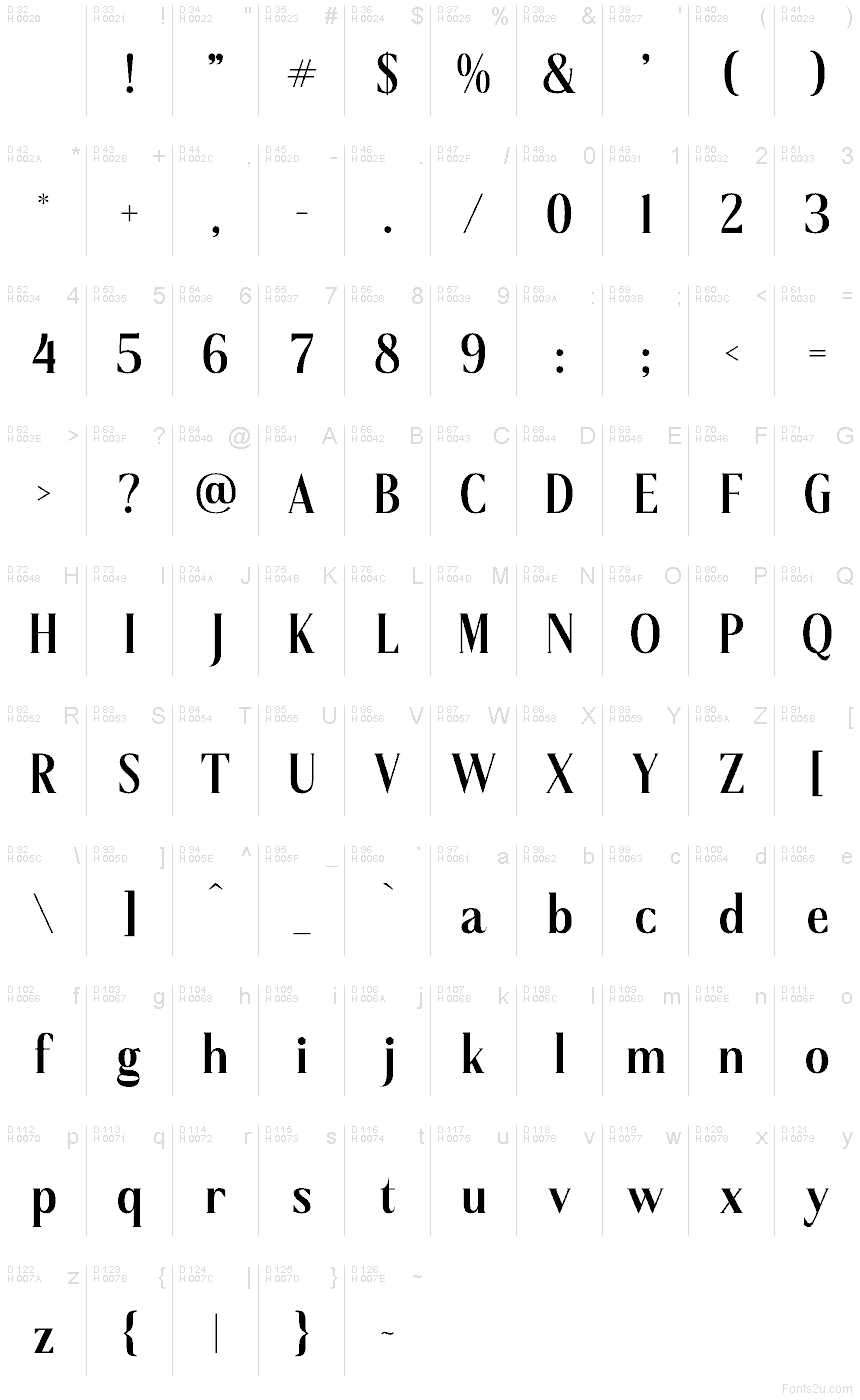
Melondy
Melondy font by Storytype Studio is a professional and sophisticated free serif font. With condensed letters, traditional influences, and decorative visual elements, it holds a modern elegance that cannot be easily imitated. The designs that use Melondy appear extremely neat and organized with perfect lengths and angles on all sides.
Use Melondy for book covers, magazines, home page titles, logo design, product package design/labeling (of cosmetics, perfumes), or even business cards.